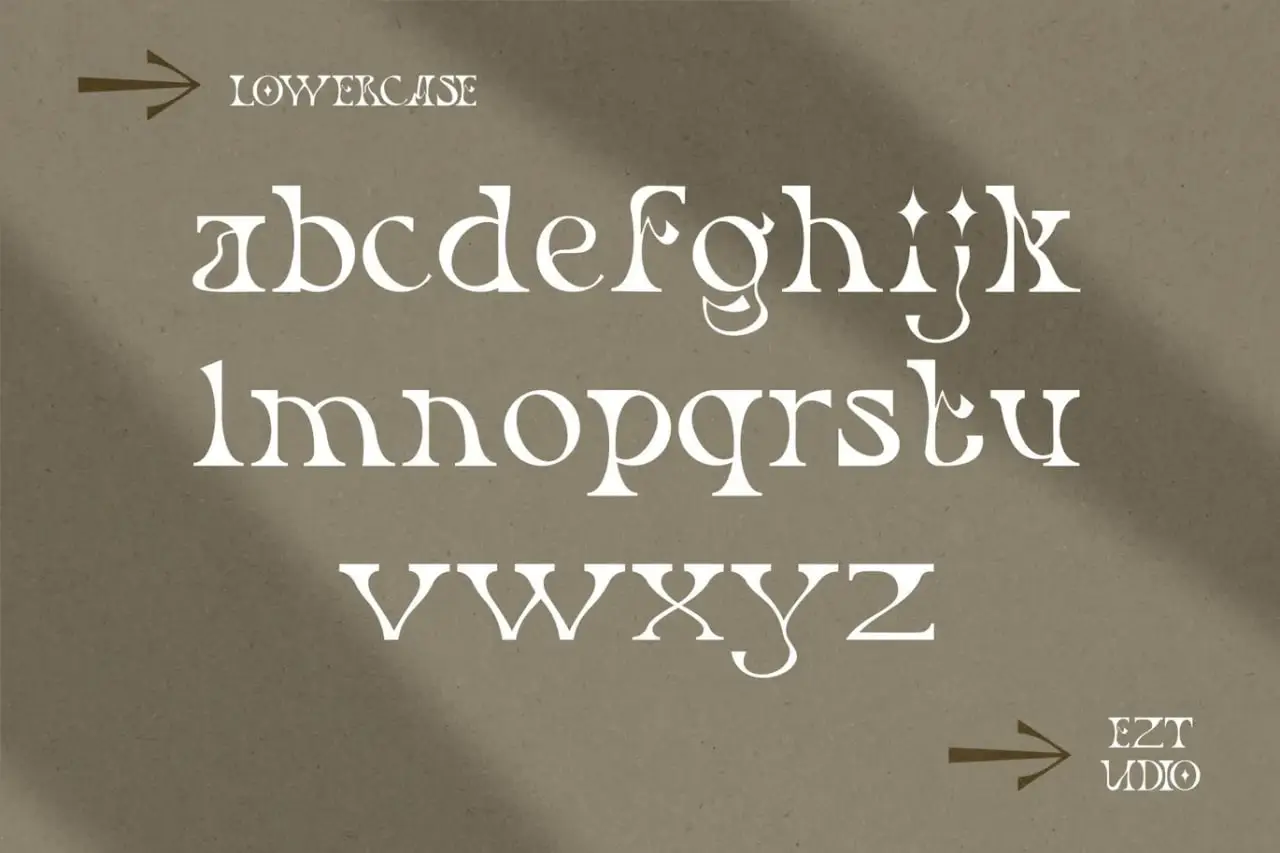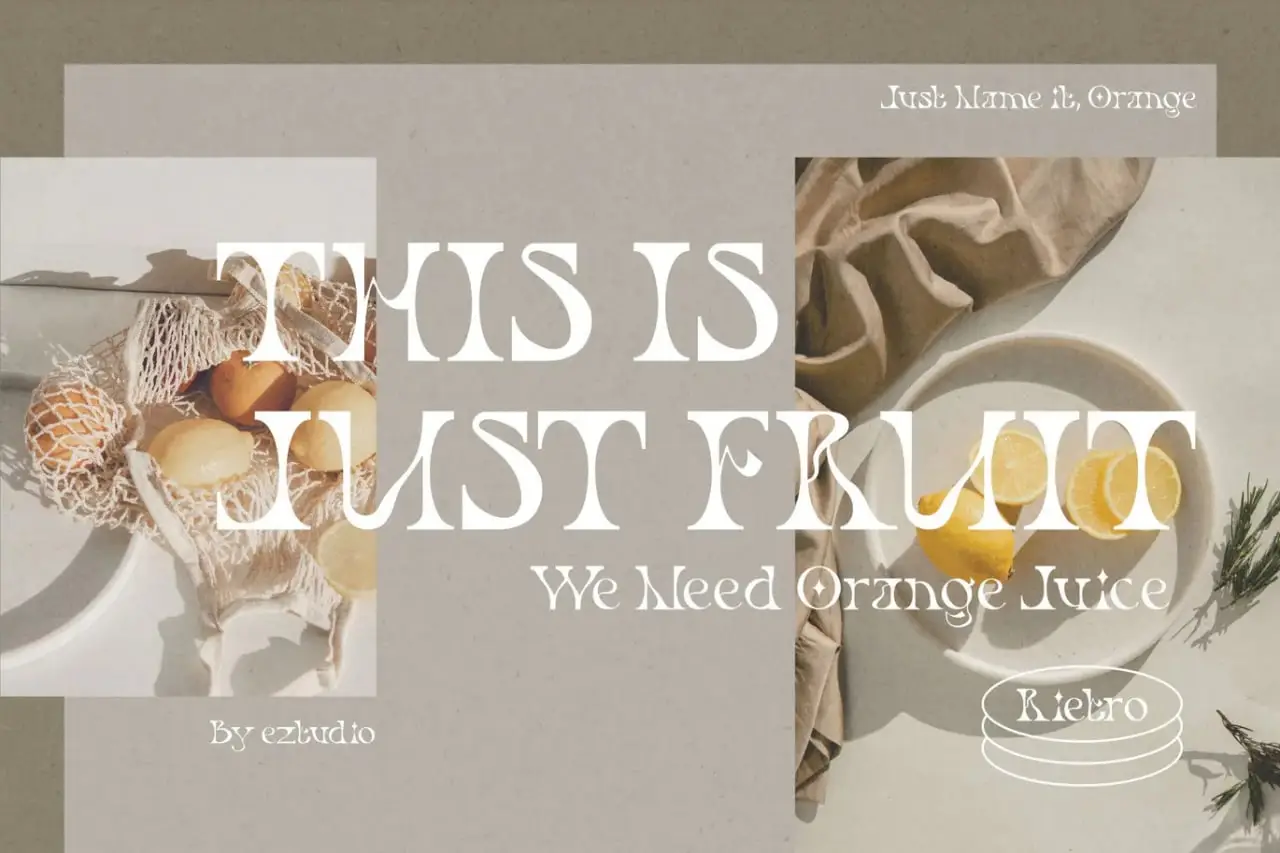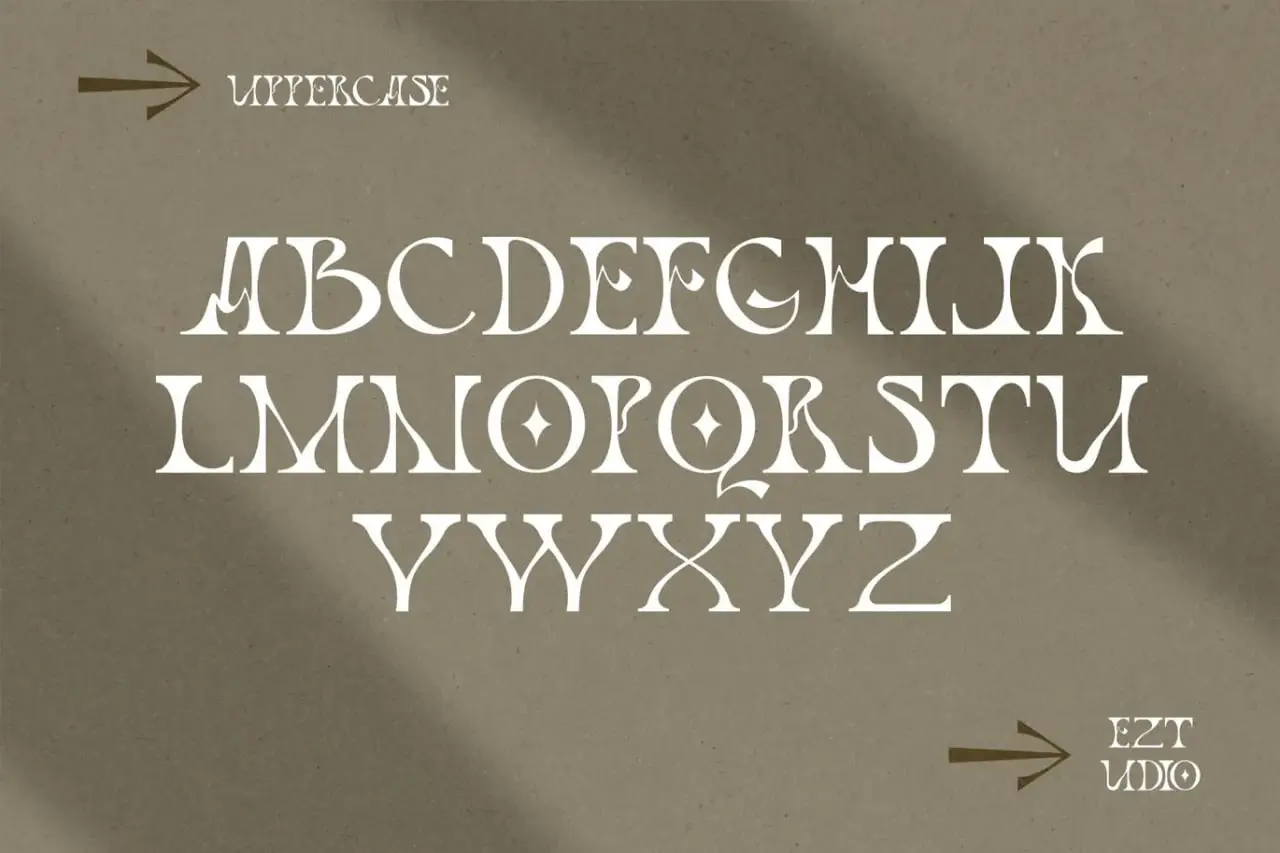
Rietro-Modern Retro Typeface By © Eztudio
Introducing the Rietro-Modern Retro Typeface by © Eztudio, a unique font that captures the essence of retro design while maintaining a modern flair. This typeface is perfect for a variety of applications, from branding and logos to web design and print materials.
• Styles: Available in multiple weights to suit different design needs.
• Ideal for creating eye-catching logos and branding materials.
• Use in print designs such as posters, flyers, and business cards.
• Great for digital projects, including websites and social media graphics.